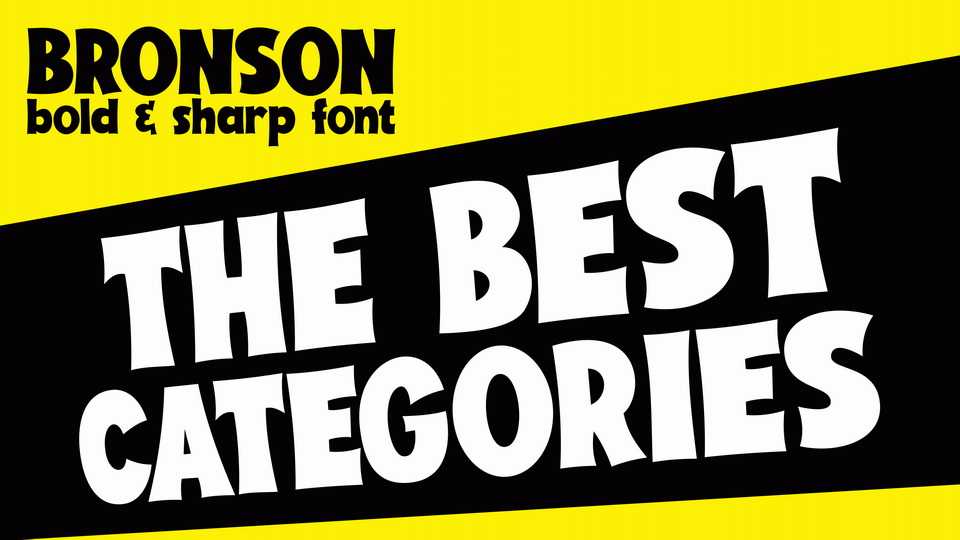
Download Bronson font, a playful typeface, but wanted to be taken seriously by others. The curved body and pointy corner, create somewhat strong message, but in a silly way.